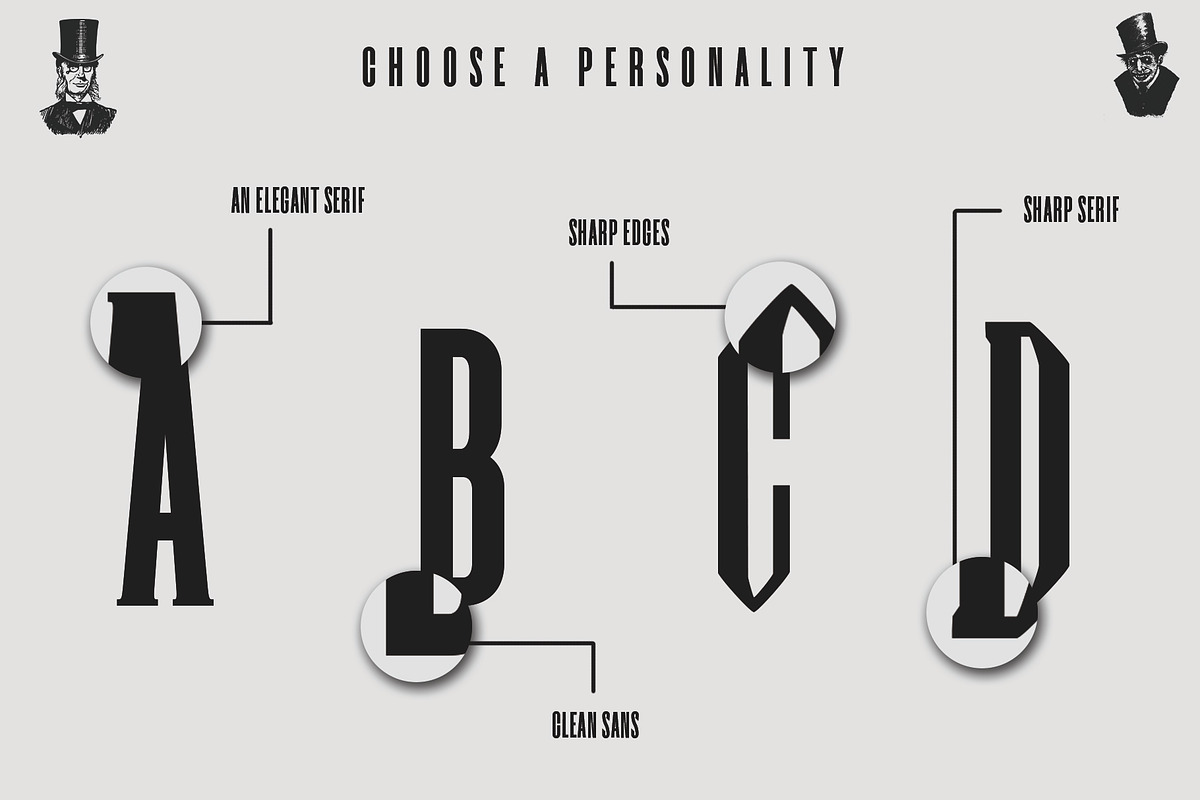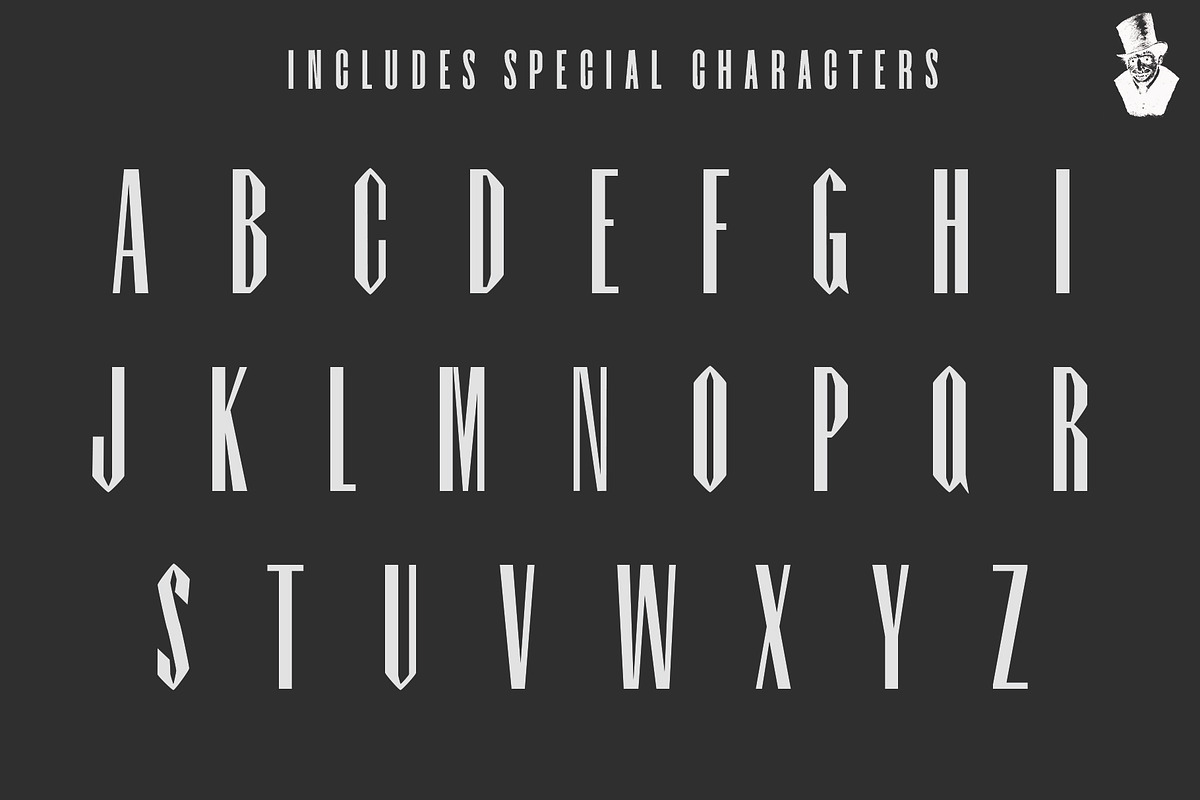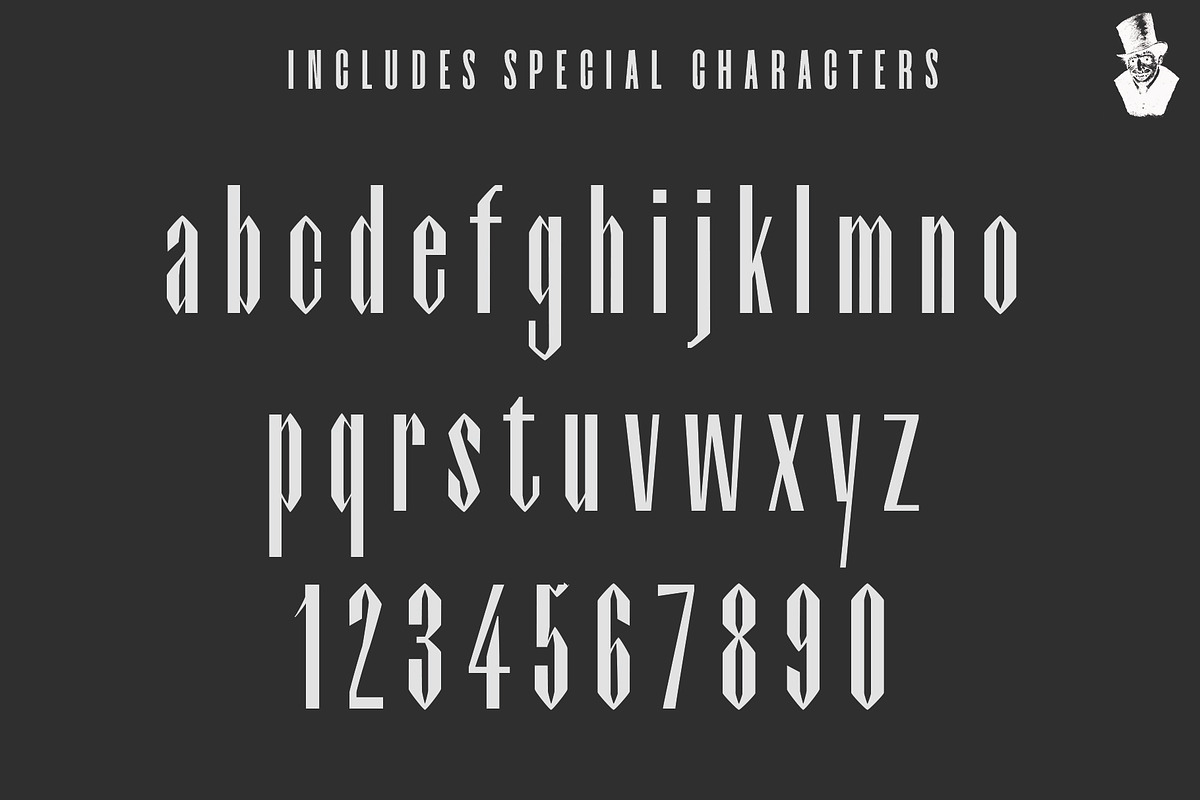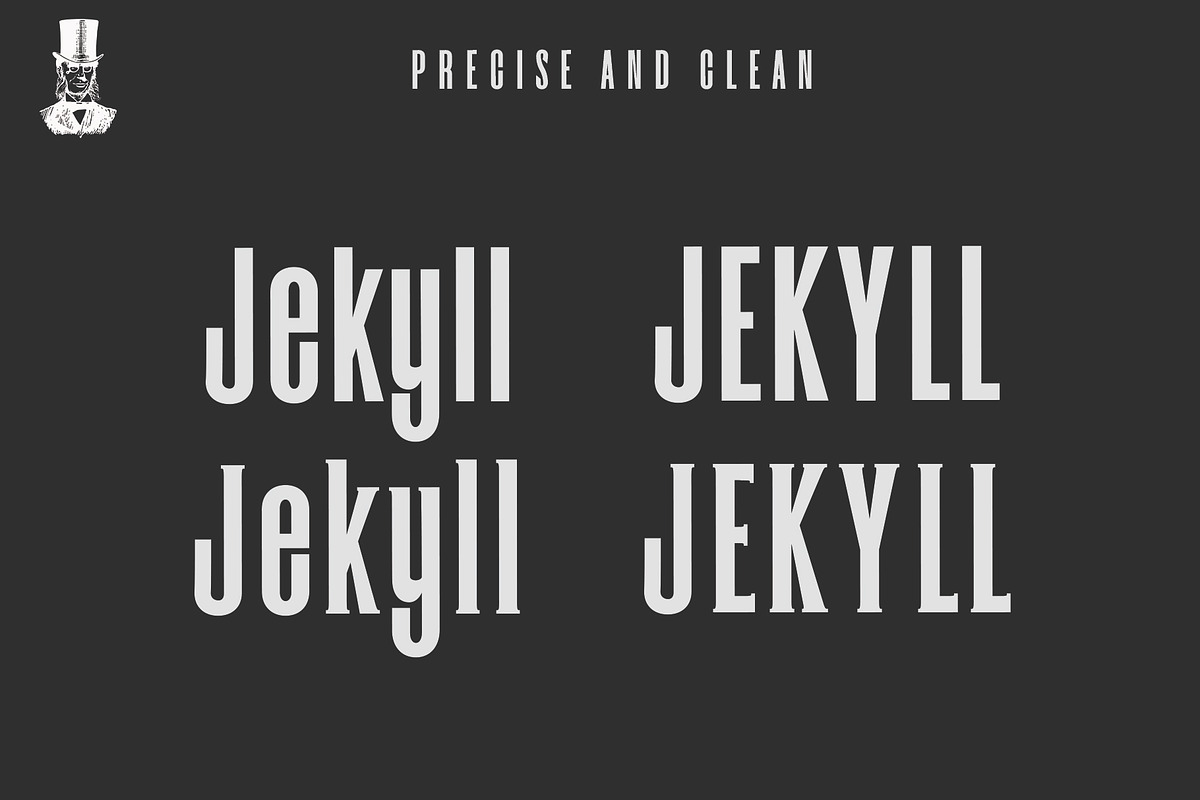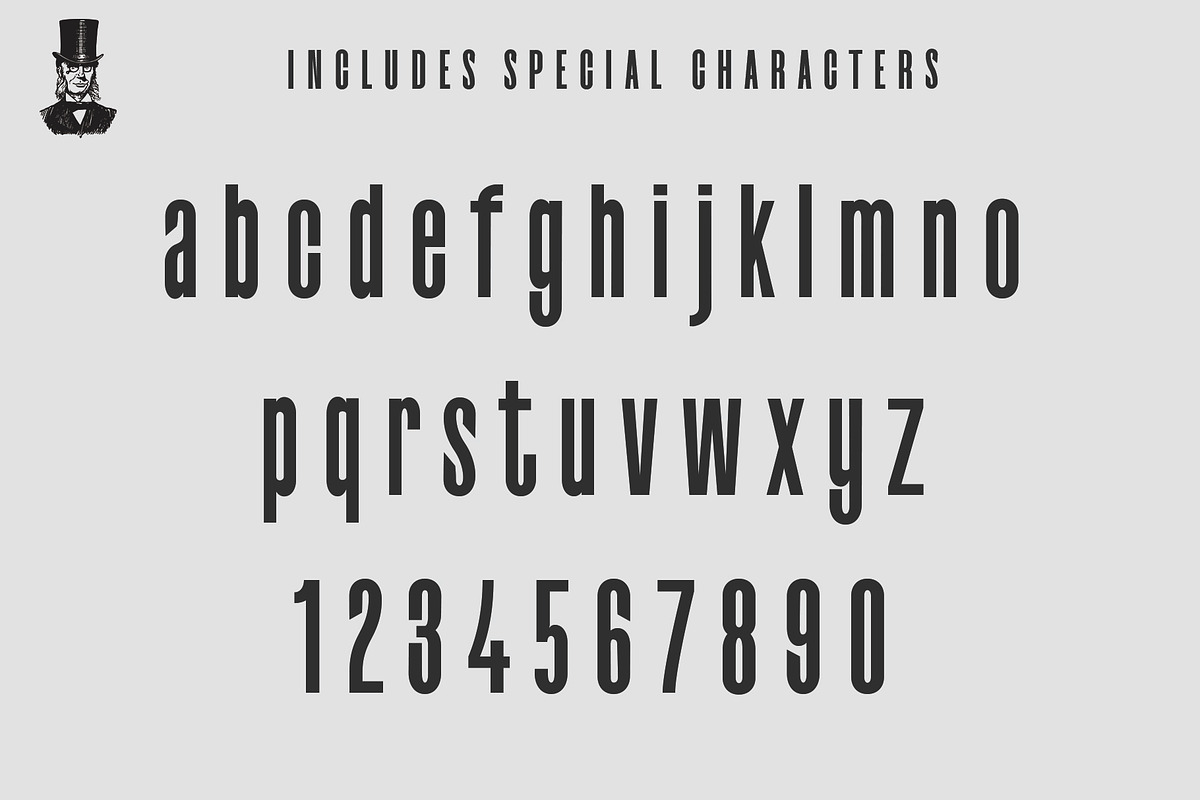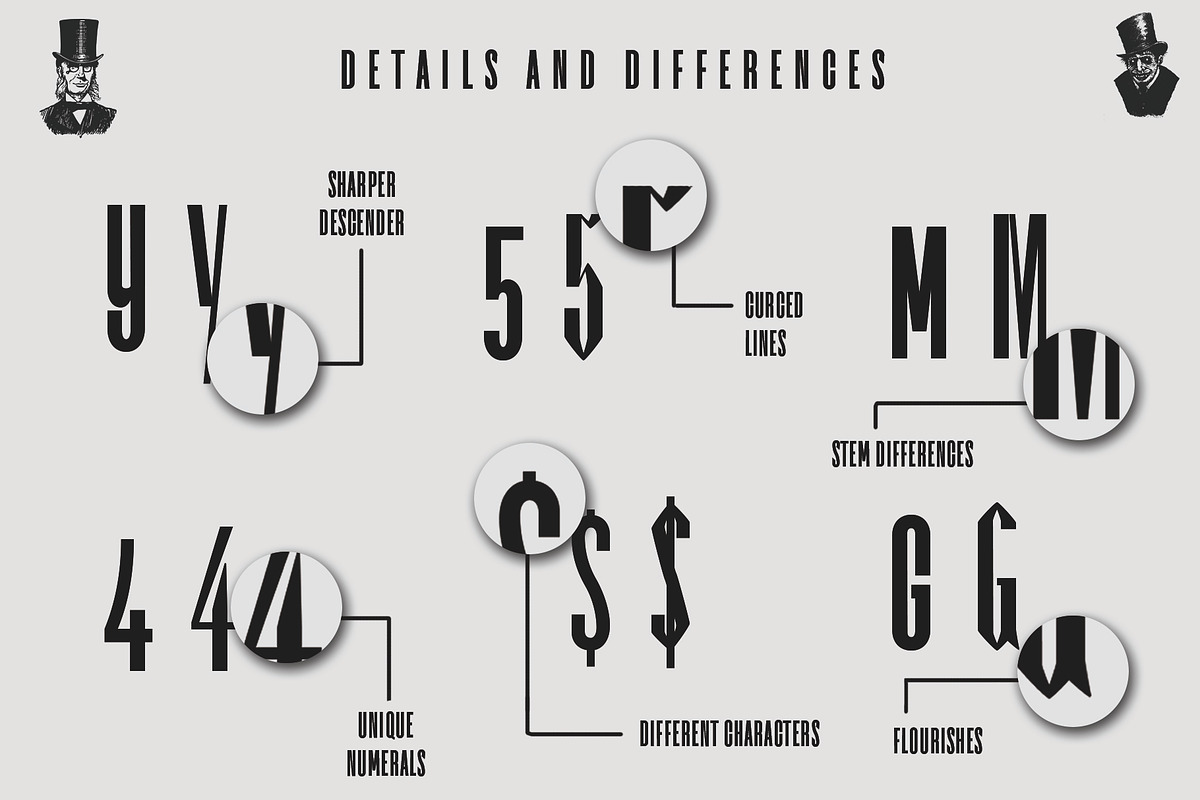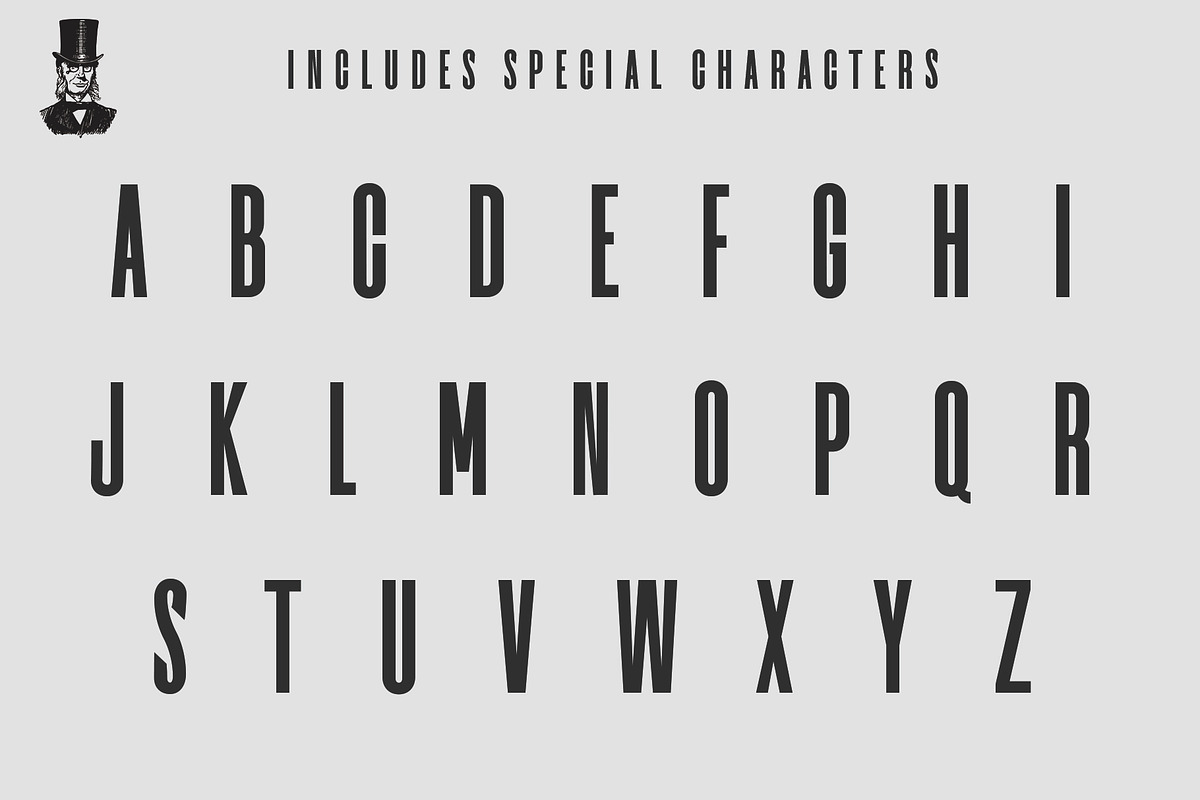
Dr.Jekyll & Mr.Hyde Typeface Duo
The horror story which we all know and love: The Strange Case of Dr.Jekyll & Mr.Hyde. Inspired by this classic story: Jekyll & Hyde is a unique typeface pair which combines the simple yet elegant style of Dr.Jekyll with the sharp and mysterious style of Mr.Hyde. Both typefaces contain unique and subtle differences; they also come with Sans and Serif styles for both personalities and include special characters.
- Dr.Jekyll-Serif regular
- Dr.Jekyll regular
- Mr.Hyde-Serif regular
- Mr.Hyde regular